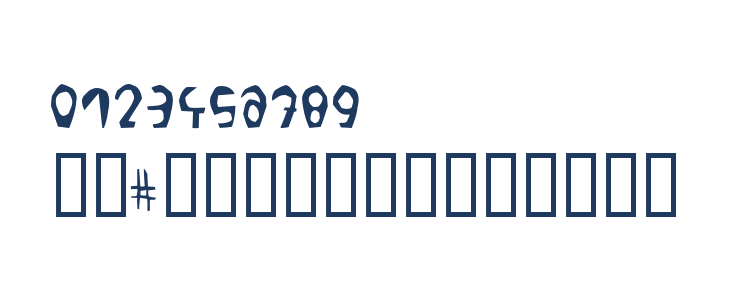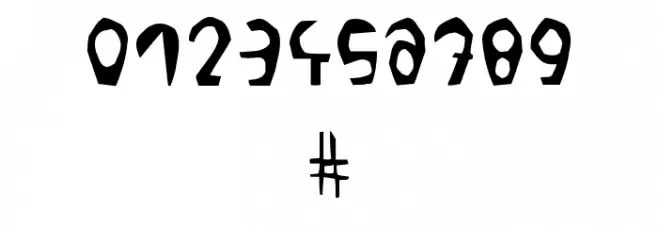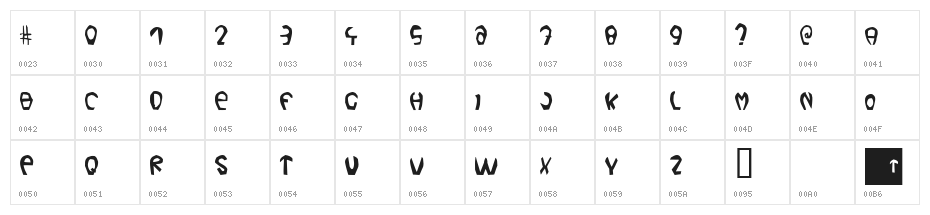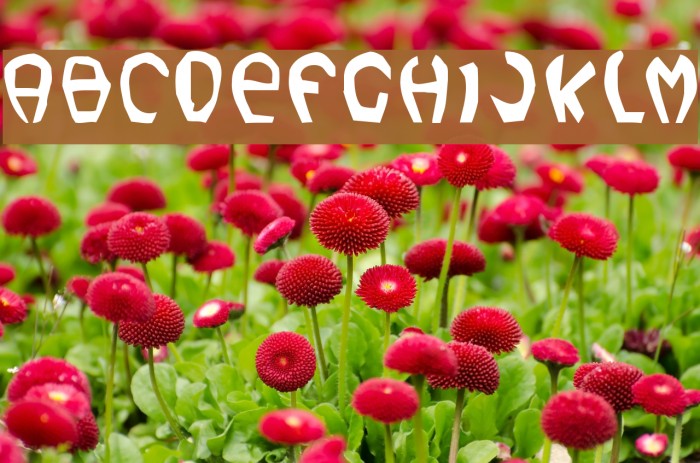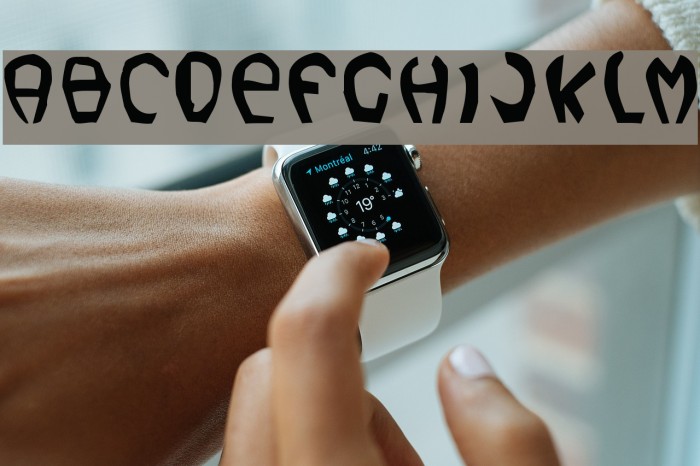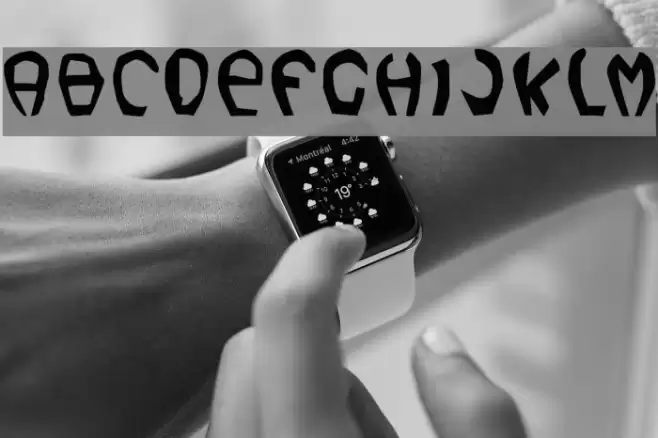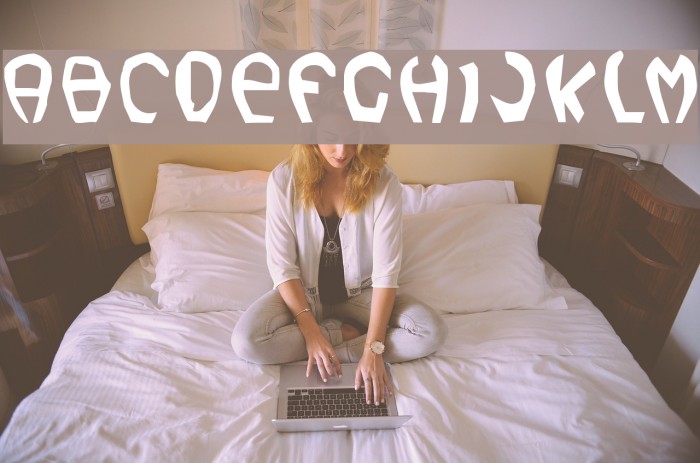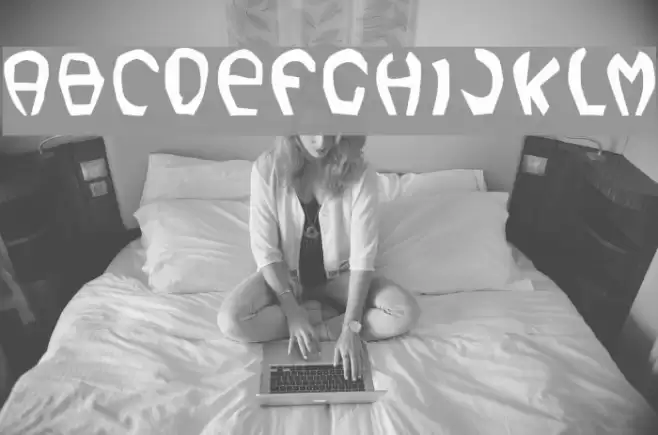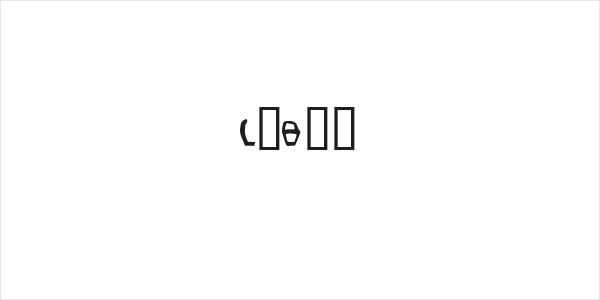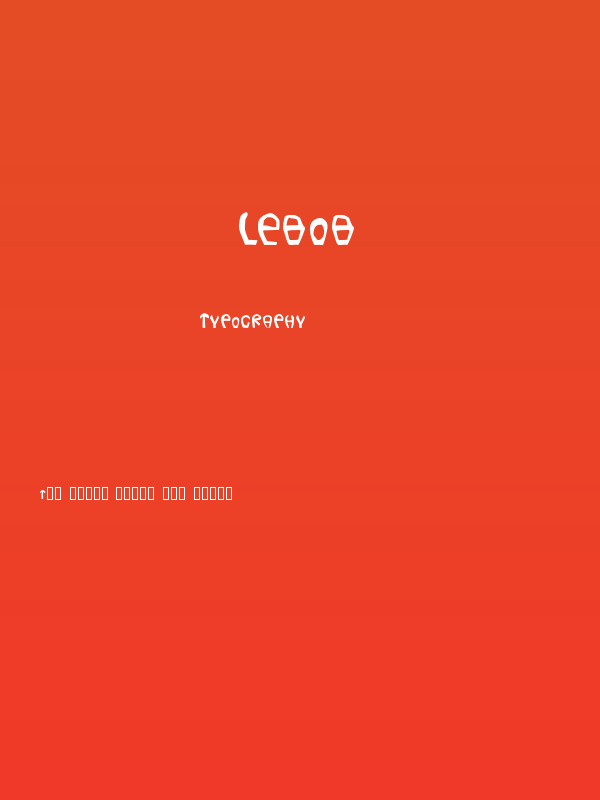
LeBob Font
LeBob Description
This font features a bold and geometric design with angular, sharp edges that create a modern and edgy appearance. The characters are distinct and have a unique, almost futuristic style, with a consistent thickness throughout each letterform. The uppercase and lowercase letters maintain a cohesive look, while the numbers and special characters follow the same design principles, ensuring uniformity across all glyphs. The font's boldness and geometric nature make it stand out, ideal for projects that require a strong visual impact.
| Proposed Projects | Ideal for branding, posters, album covers, and any project needing a modern, edgy aesthetic. |